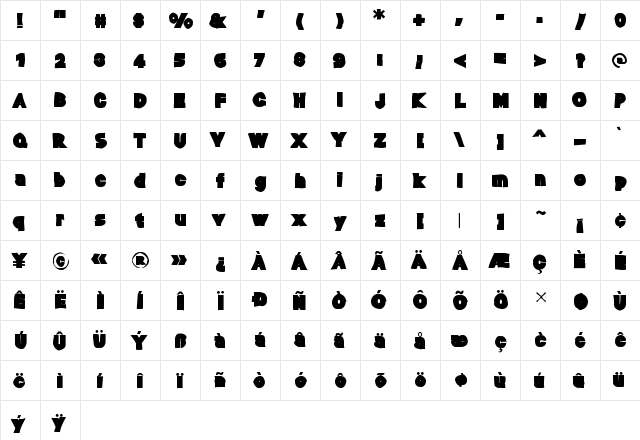
Baltar Ink Regular
Design Context for Baltar Ink Typeface
Baltar Ink takes a measured approach to typography — its balanced proportions and neutral character make it a reliable workhorse for both digital and print work.